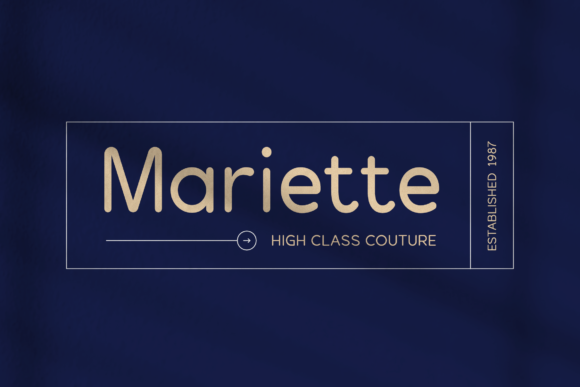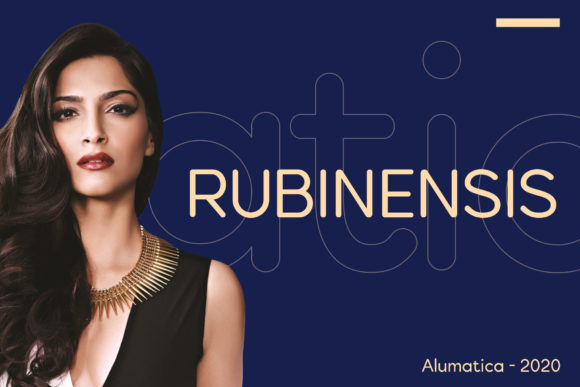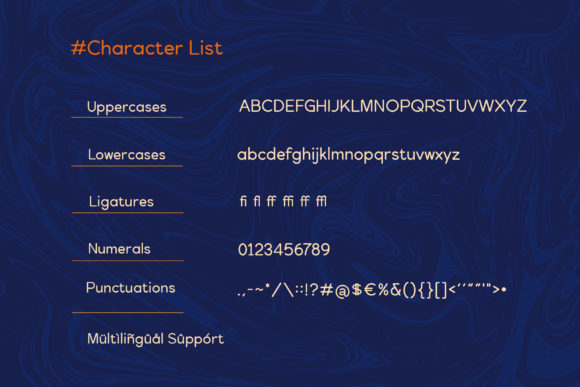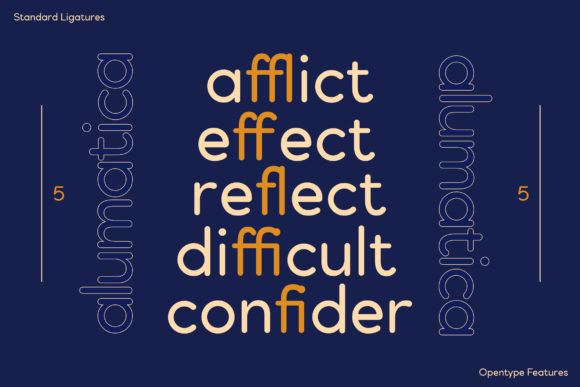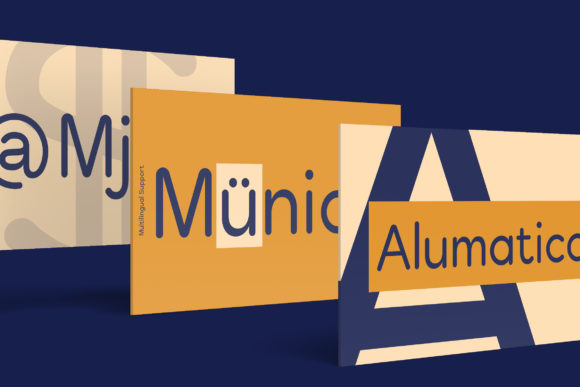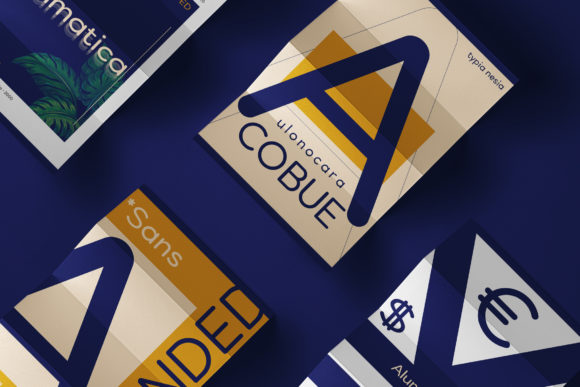
Introducing Alumatica Font: Elevate Your Designs with a Minimal and Neat Sans Serif
In the world of typography, fonts play a crucial role in making or breaking a design. A well-chosen font can elevate your creative project, making it stand out from the crowd. If you’re on the hunt for a font that embodies simplicity, elegance, and versatility, look no further than Alumatica Font. This minimal and neat sans serif font is designed to seamlessly integrate into a wide array of projects, bringing a touch of sophistication and modernity to your designs.
The Essence of Alumatica Font
Alumatica Font is characterized by its clean lines, straightforward design, and a complete absence of unnecessary embellishments. This sans serif font boasts a minimalistic approach, making it incredibly versatile for various applications. From digital platforms such as websites, mobile apps, and social media graphics, to print materials like brochures, posters, and business cards, Alumatica Font adapts with ease.
Why Choose Alumatica Font?
There are several reasons why designers and crafters are gravitating towards Alumatica Font:
• Versatility: Its neutral design allows it to fit into a broad spectrum of projects, from modern digital interfaces to traditional print materials.
• Legibility: The clear and simple structure of Alumatica Font ensures excellent readability, making it perfect for body text, headings, and even large-scale displays.
• Elegance: Despite its minimalist approach, Alumatica Font exudes a certain level of sophistication, adding a professional touch to any design.
• Creativity: Its neutral background makes it an excellent choice for designers looking to inject creativity and personality into their work.
Applications of Alumatica Font
The applications of Alumatica Font are vast and varied. Here are a few ideas to get you started:
• Branding: Use Alumatica Font for logos, business cards, and letterheads to create a cohesive and professional brand image.
• Web Design: Enhance your website’s user experience with a clean and readable font that works well across different devices and screen sizes.
• Marketing Materials: From flyers and brochures to social media posts and email newsletters, Alumatica Font can help elevate your marketing materials.
• Packaging: Add a modern touch to your product packaging with a font that communicates simplicity and elegance.
Tips for Using Alumatica Font Effectively
To make the most out of Alumatica Font, consider the following tips:
• Experiment with Sizes: While Alumatica Font maintains its elegance and readability across various sizes, experimenting with different sizes can help you achieve the desired visual impact.
• Play with Colors: The neutral design of Alumatica Font allows it to work well with a wide range of colors. Don’t be afraid to experiment with different color palettes to find the perfect match for your design.
• Mix and Match: Combine Alumatica Font with other fonts to create contrast and add depth to your design. Its simplicity makes it an excellent pairing with more decorative fonts.
Alumatica Font is more than just a typeface; it’s a design solution that brings a blend of minimalism, elegance, and versatility to the table. Whether you’re a professional designer or a DIY enthusiast, this font has the potential to transform your creative projects, making them stand out in a crowded digital landscape. With its wide range of applications and ease of use, Alumatica Font is set to become a staple in your design toolkit.